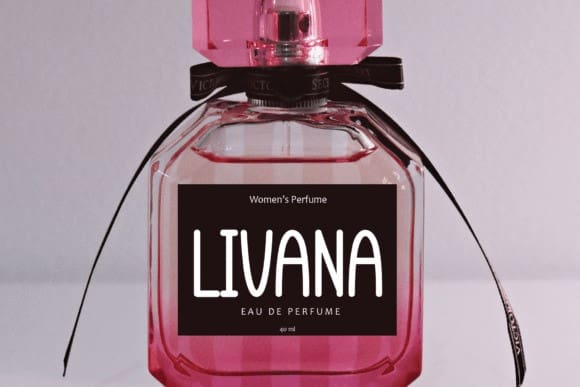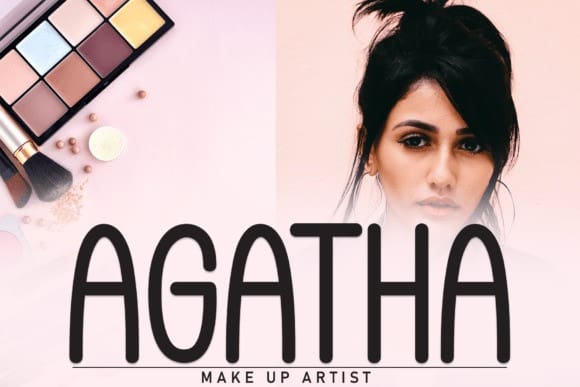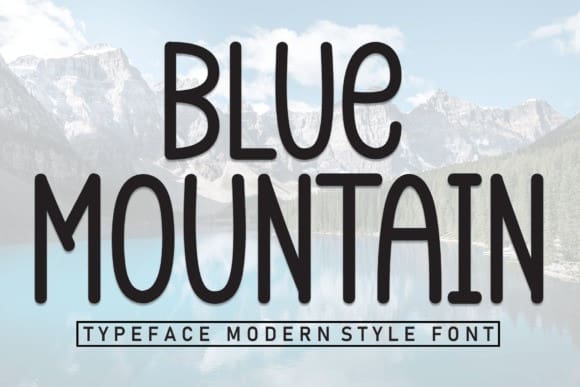
Blue Mountain Font
Blue Mountain Font is a sweet and friendly handwritten font. Fresh and casual, this font is ideal for writing wedding invitations, cards, or any other design that might need a lovely touch.